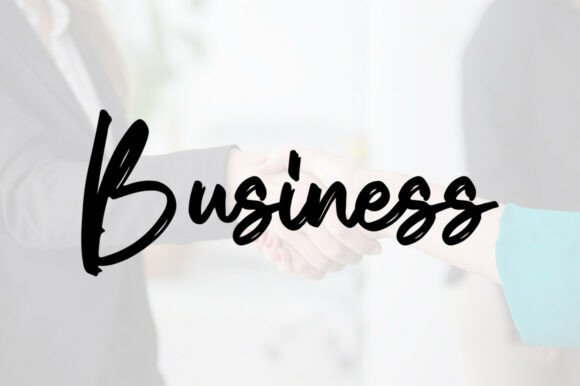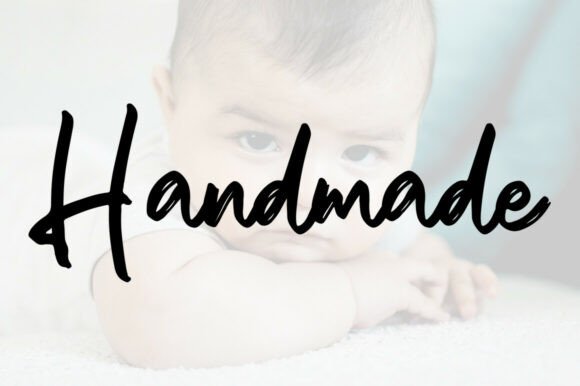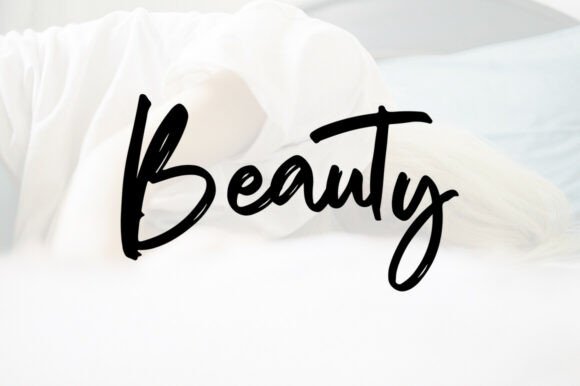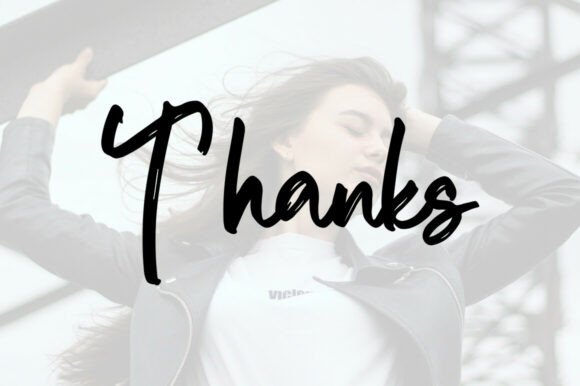
Bathine Font: Elevate Your Creative Projects with Elegance and Magic
In the world of typography, few fonts manage to capture the essence of elegance and magic as effortlessly as Bathine. This enchanting script font is meticulously crafted to add a touch of sophistication and whimsy to any creative project. Whether you’re a designer looking to elevate your Instagram feed or a crafter seeking the perfect calligraphy script for your DIY endeavors, Bathine is the ideal choice. In this article, we’ll delve into the unique features of Bathine and explore how it can transform your creative ideas into true pieces of art.
The Unique Charm of Bathine
Bathine is not just another script font; it’s a carefully curated collection of characters designed to evoke a sense of wonder and luxury. Each letter is crafted with precision, featuring flowing lines and delicate curves that give it a distinctly elegant appearance. The font’s magical touch is evident in its subtle yet captivating details, making it perfect for projects that require a dash of personality and charm.
One of the standout features of Bathine is its versatility. This font is incredibly adaptable, making it suitable for a wide range of applications. Here are a few ways you can use Bathine to elevate your creative projects:
- Instagram and Social Media: Make your Instagram feed stand out with Bathine. Use it to create eye-catching quotes, stories, and posts that reflect your personal style or brand aesthetic.
- DIY Projects: Add a touch of elegance to your DIY crafts, such as handmade cards, journals, and home decor items. Bathine’s calligraphy script is perfect for creating personalized and unique pieces.
- Graphic Design: Incorporate Bathine into your graphic design projects, including brochures, posters, and branding materials. Its magical and elegant feel can help convey your message in a captivating way.
Why Choose Bathine?
With so many fonts available, why should you choose Bathine for your projects? Here are a few compelling reasons:
- Elegance: Bathine brings an unparalleled level of elegance to any project. Its sophisticated design ensures that your work stands out from the crowd.
- Magical Touch: The font’s unique magical elements add a whimsical touch that can make your projects truly memorable.
- Easy to Use: Bathine is designed to be user-friendly. Whether you’re a professional designer or a crafting enthusiast, you’ll find it easy to incorporate into your work.
- High Versatility: As mentioned earlier, Bathine’s adaptability makes it suitable for a variety of applications, from digital media to handmade crafts.
Tips for Using Bathine Effectively
To get the most out of Bathine, consider the following tips:
- Pair with Complementary Fonts: For maximum impact, pair Bathine with fonts that complement its elegant and magical feel. Serif fonts or simple sans-serifs work well for creating a balanced look.
- Experiment with Colors: Don’t be afraid to experiment with different colors. Bathine looks stunning in metallic tones, pastels, and rich jewel tones, depending on the mood you’re trying to create.
- Pay Attention to Spacing: Proper spacing is crucial when working with script fonts. Ensure that your text is well-spaced to maintain readability and visual appeal.
Bathine is more than just a font; it’s a tool for creativity and self-expression. Its magical script and elegant design make it the perfect choice for designers and crafters looking to add a touch of sophistication and whimsy to their projects. Whether you’re working on a DIY craft or a professional design project, Bathine has the potential to transform your ideas into true pieces of art. So why wait? Explore the possibilities of Bathine today and let your creativity shine!